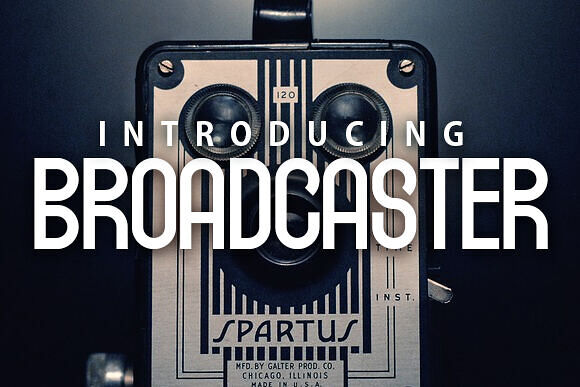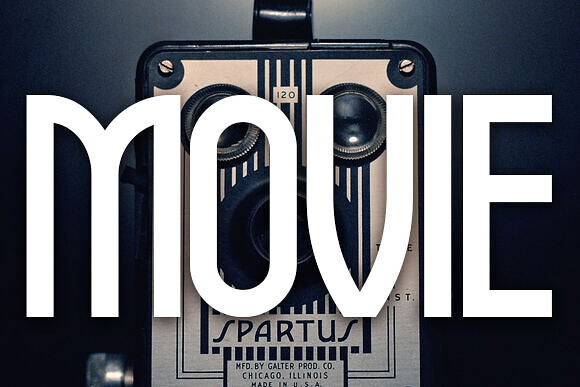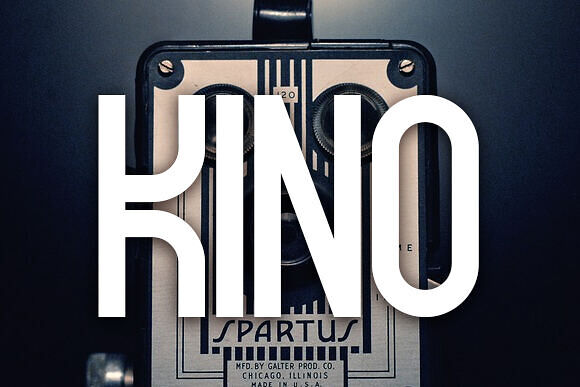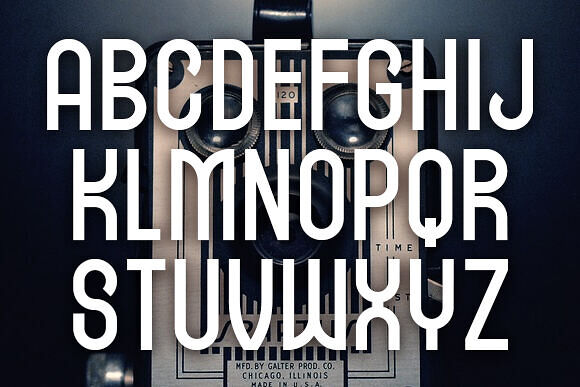
Broadcaster is a powerful display font. It features solid characters that make it perfect for headlines and big-scale designs. Four styles are included: Regular, Retro, Flat, Elegant.